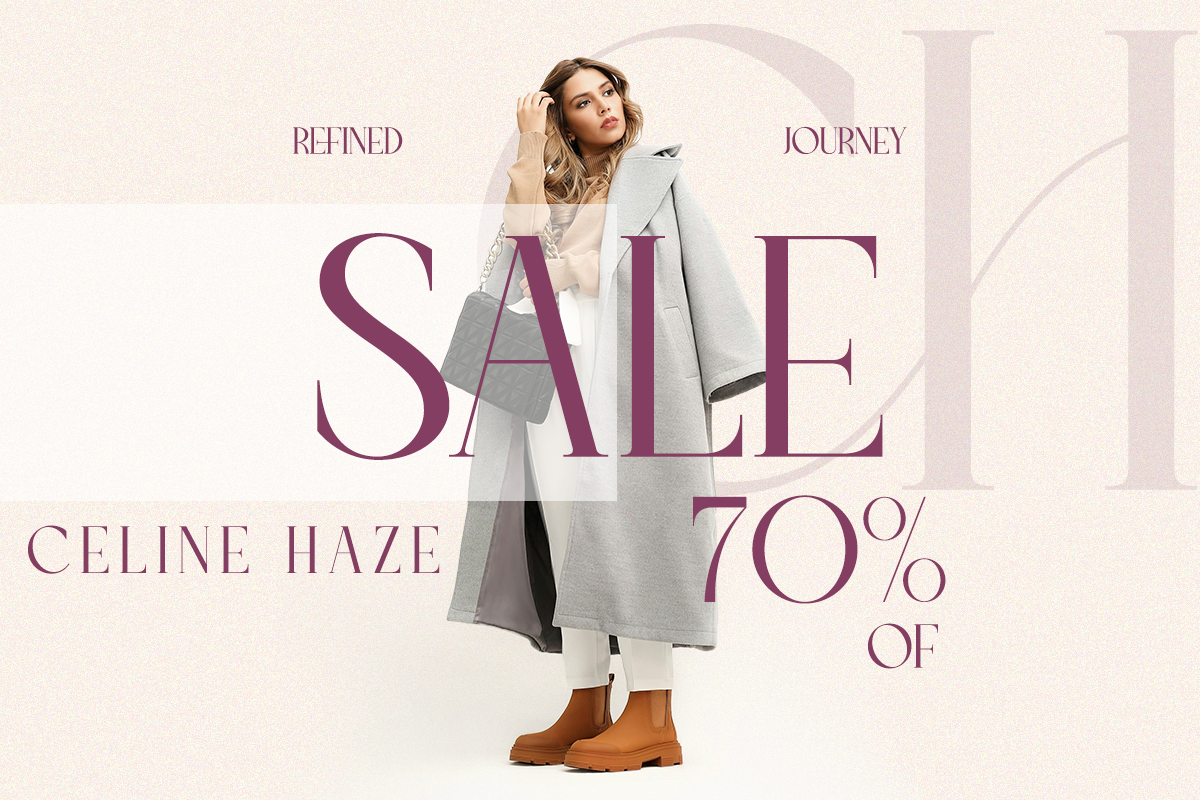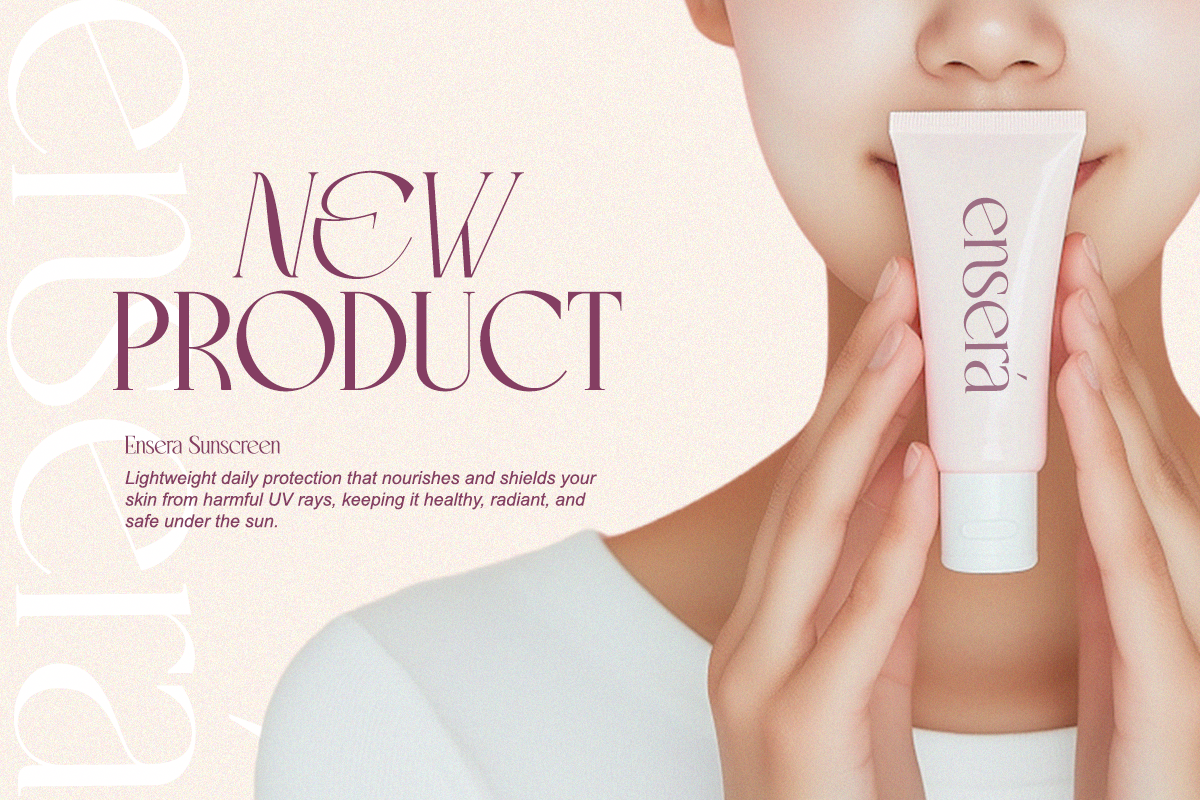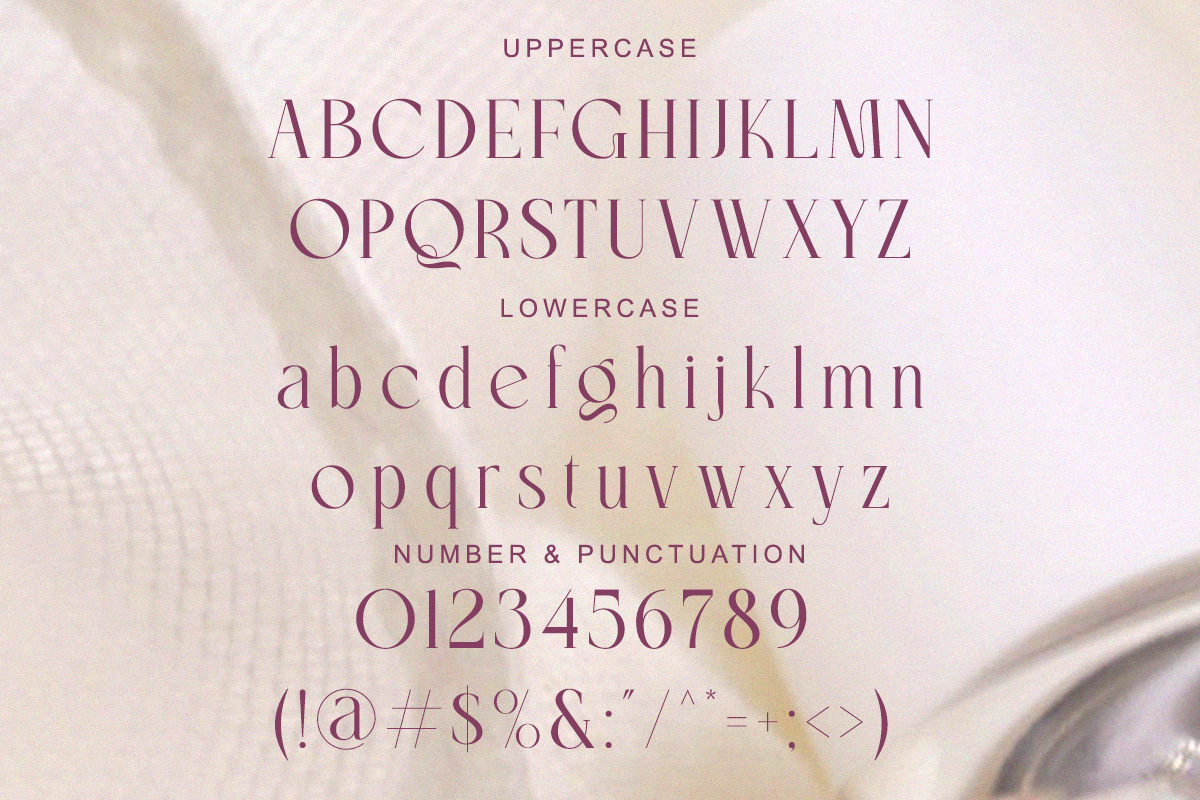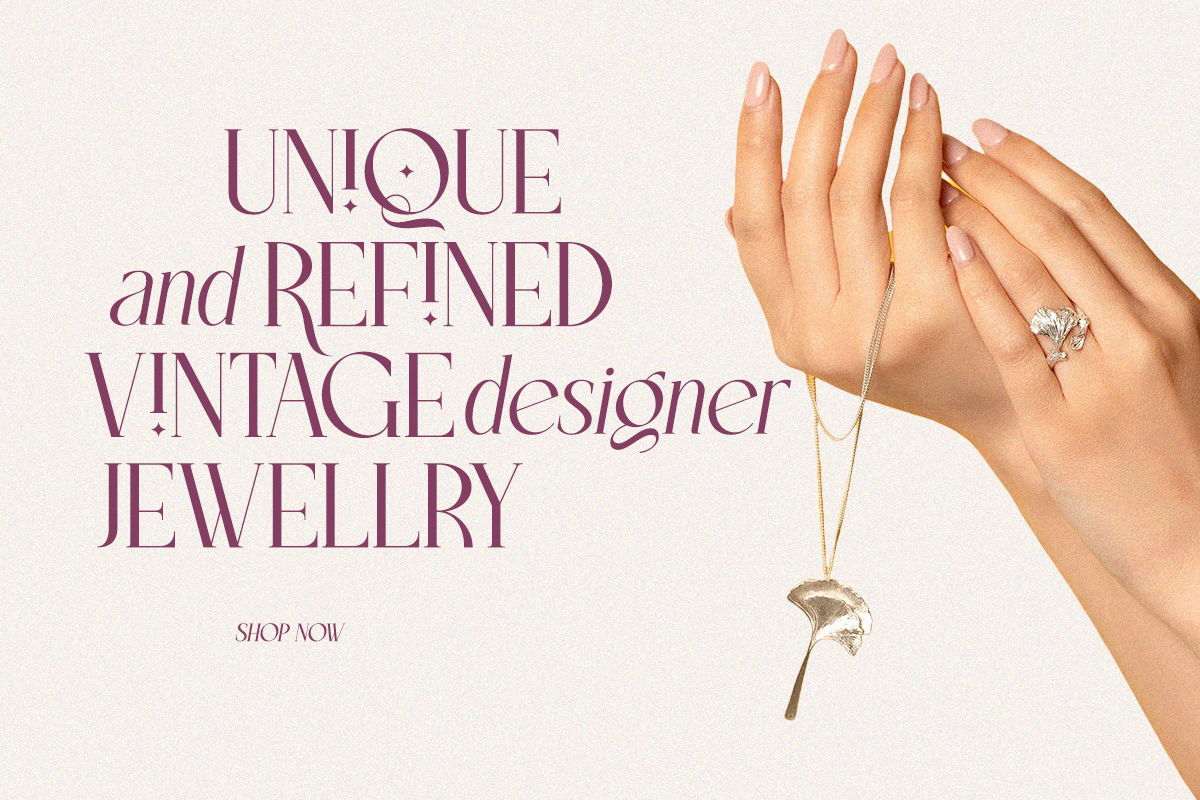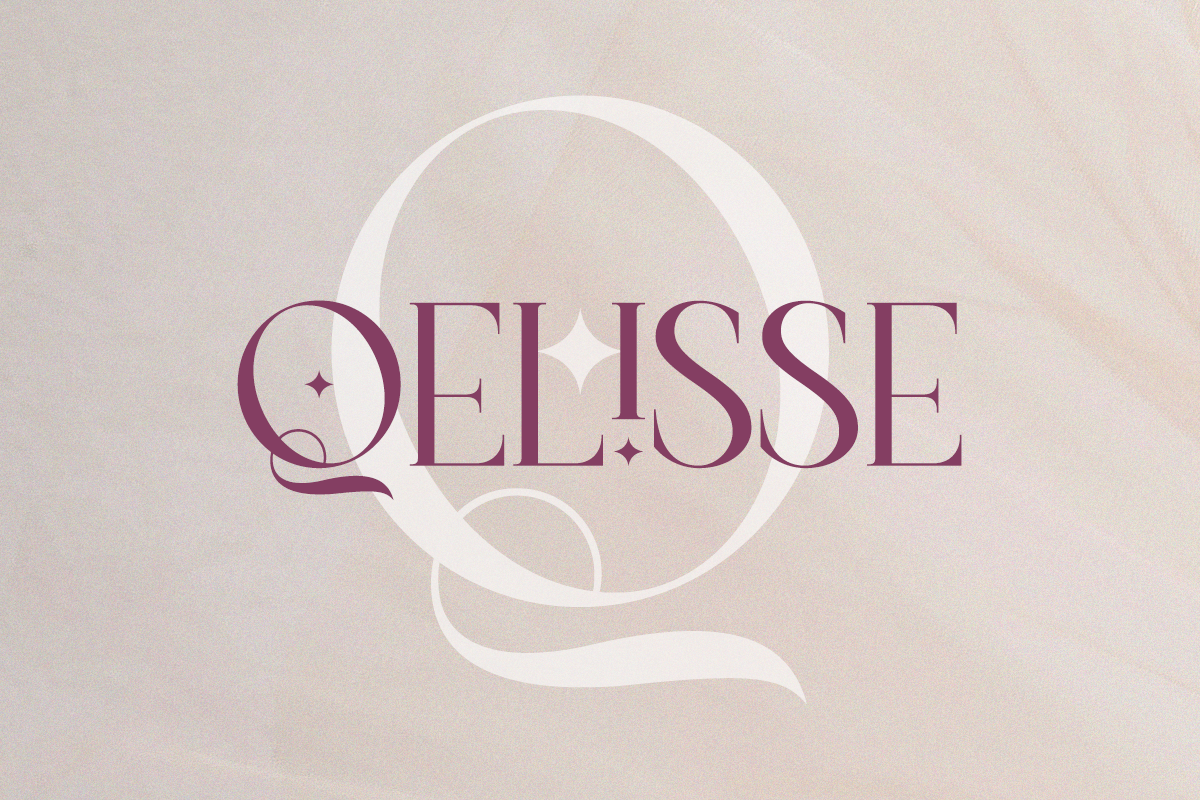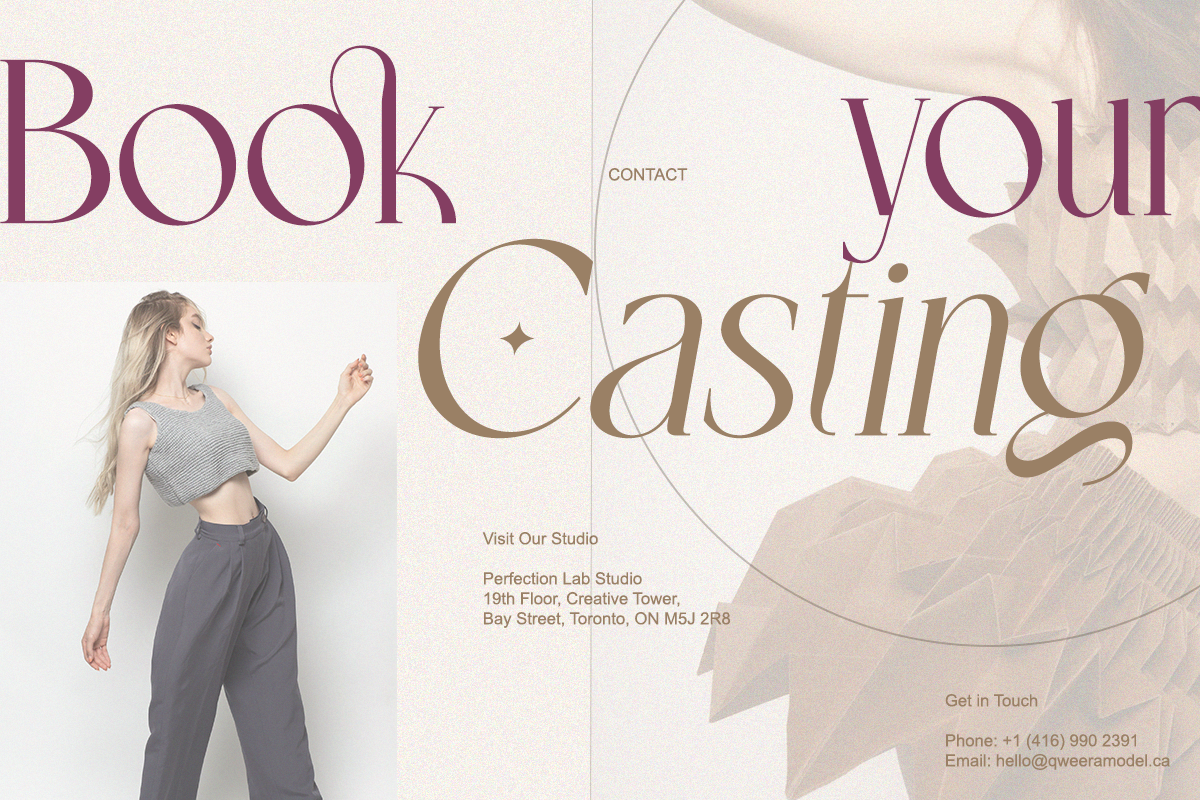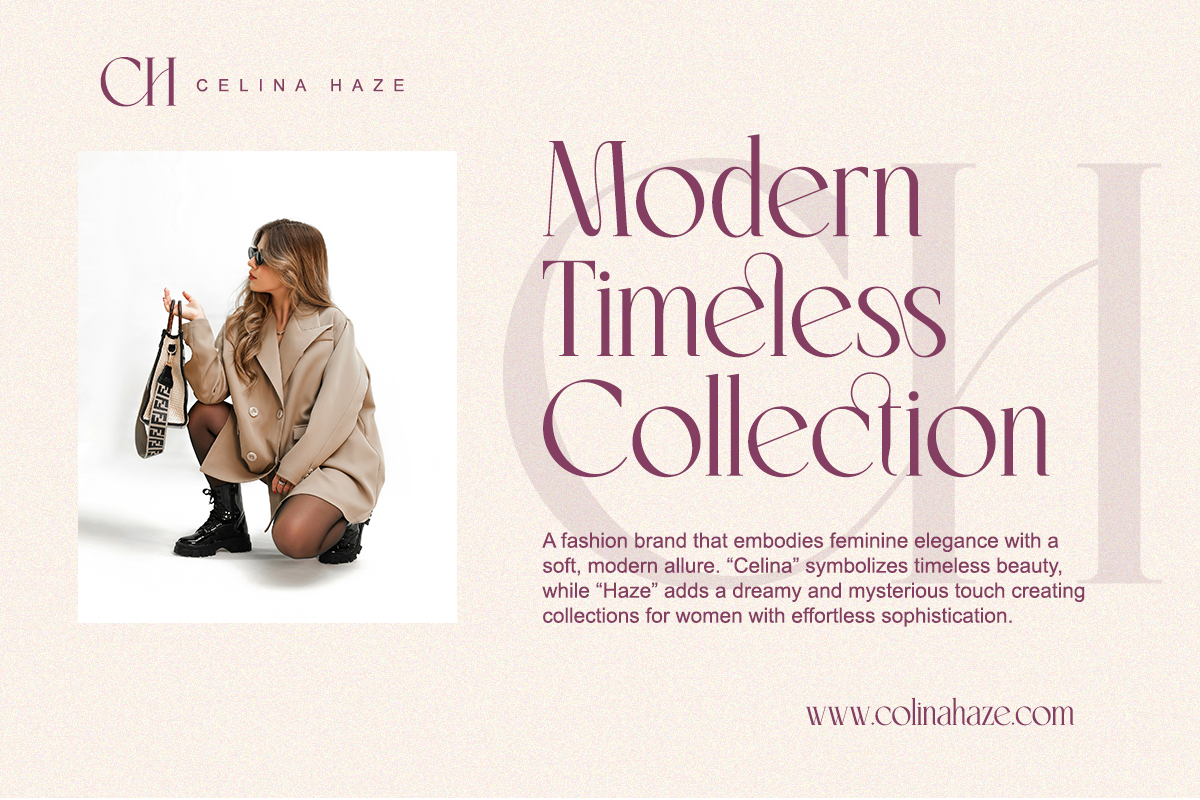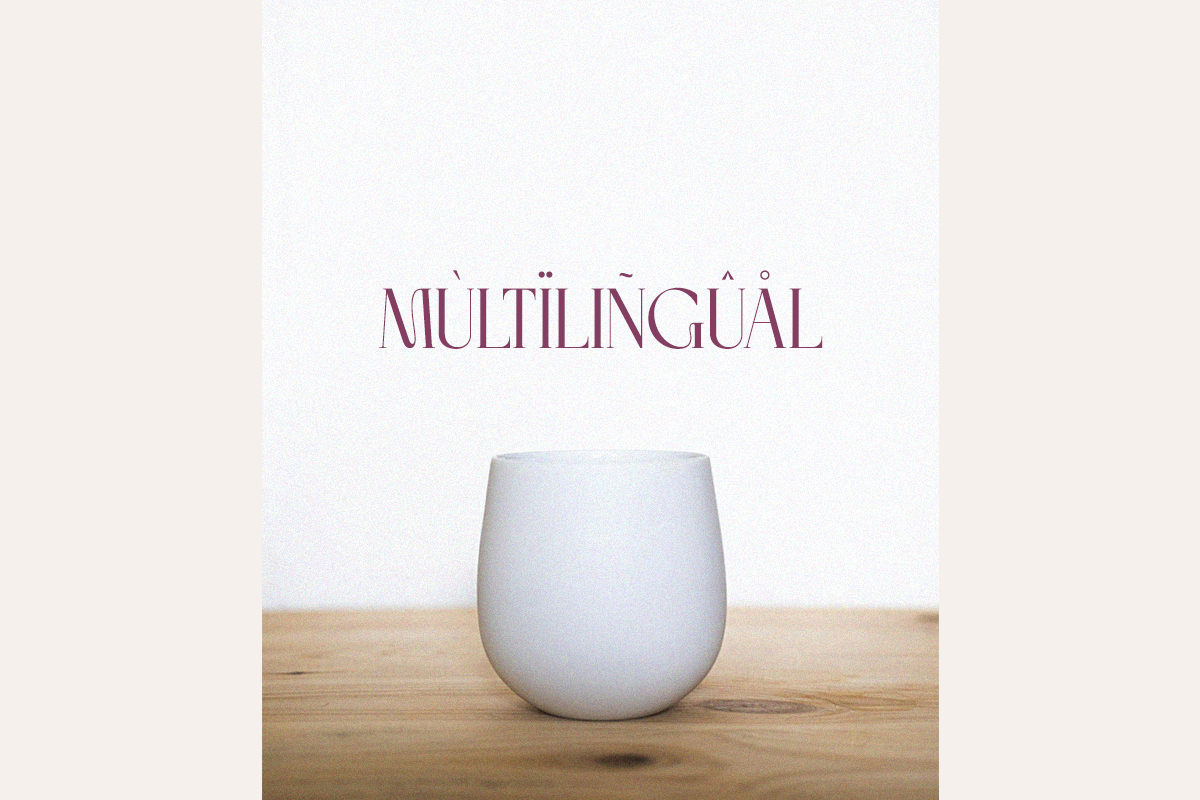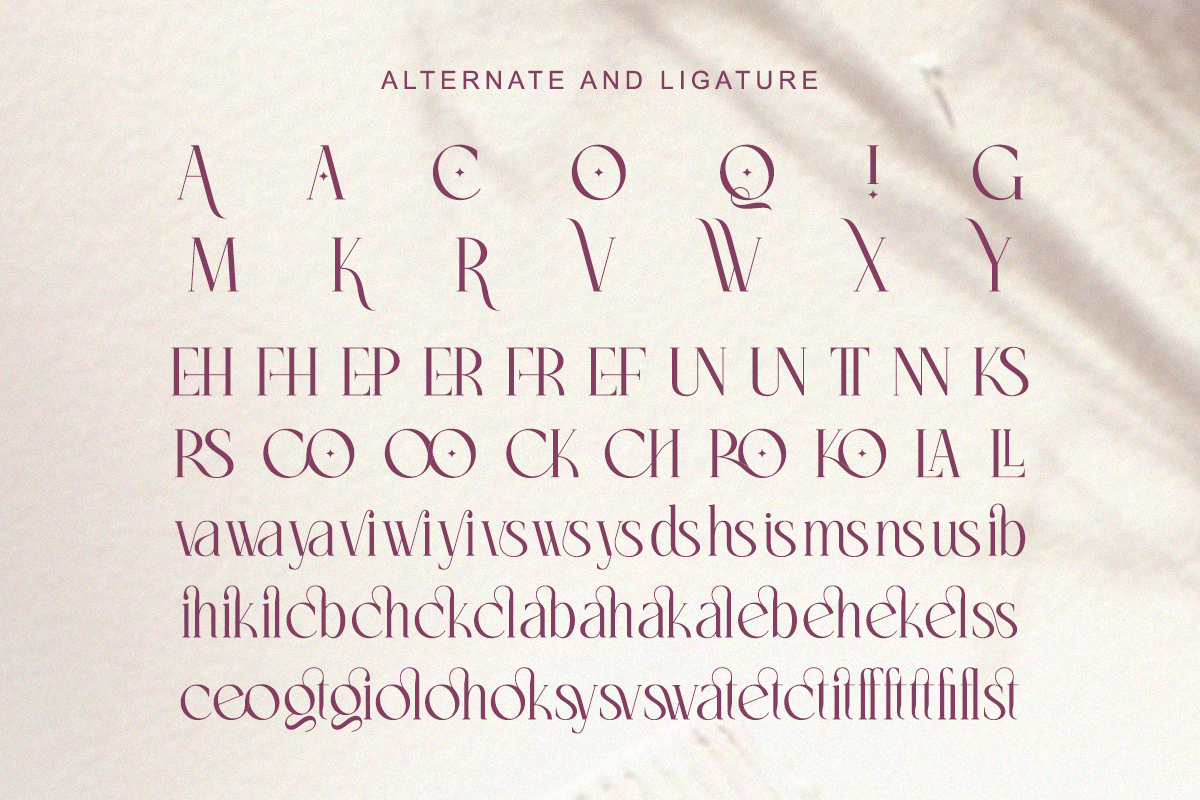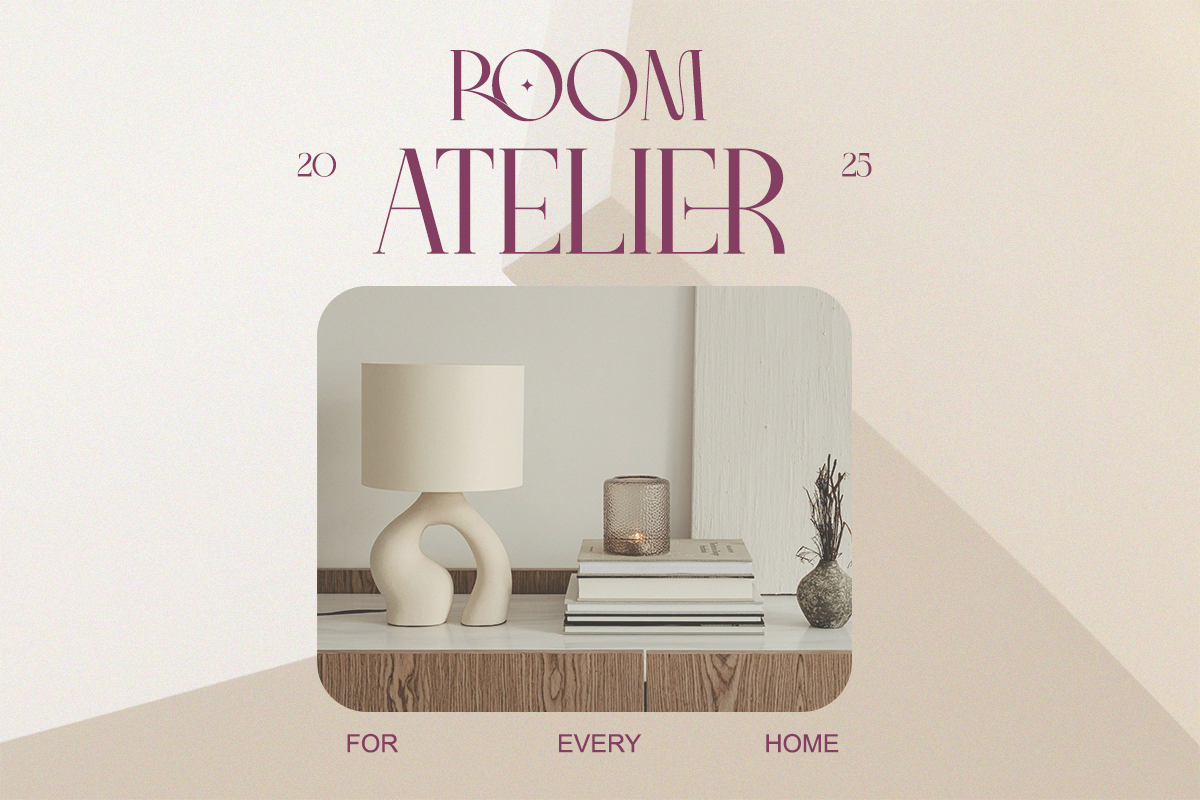
Mysgiah - Modern Feminine Serif
Introducing Mysgiah, a modern serif typeface designed with elegance and balance. It combines minimal structure with expressive ligatures for a refined and timeless impression. Ideal for beauty branding, magazines, packaging, and wedding invites, Mysgiah brings subtle sophistication and class to every design.
- Regular & Italic
Perfect For: Branding, editorial projects, social templates, wedding invitations, and luxury packaging.